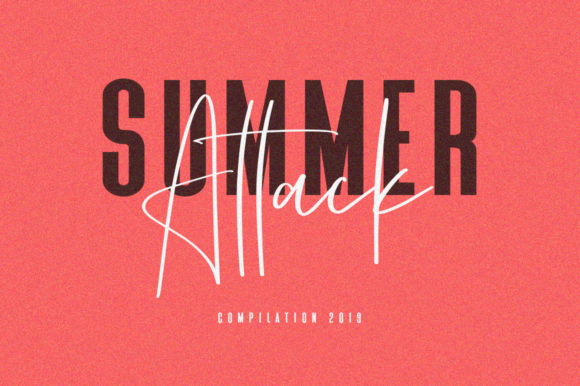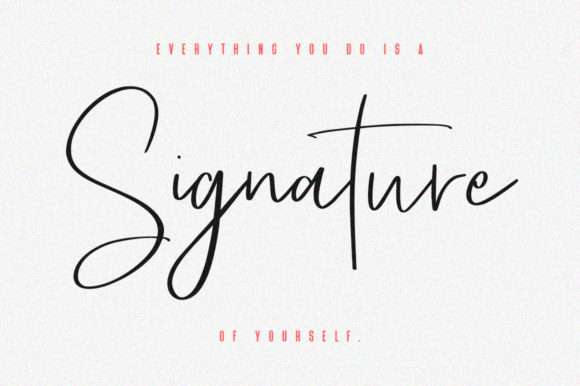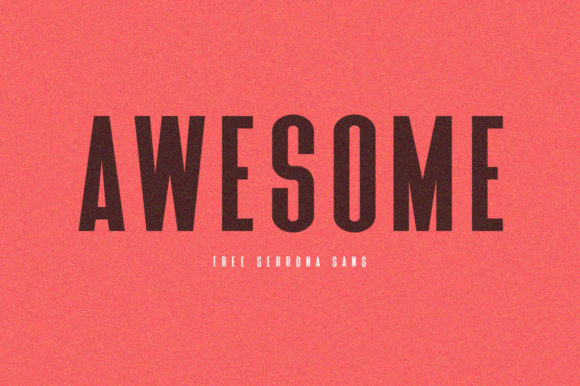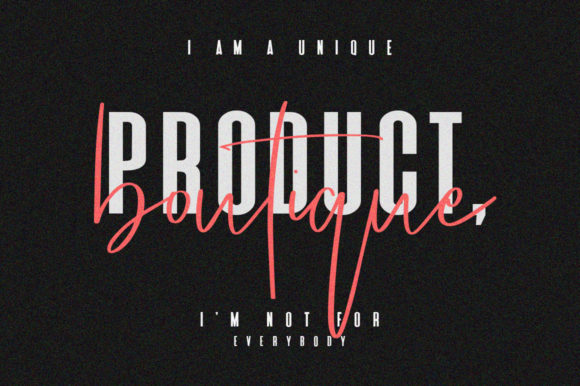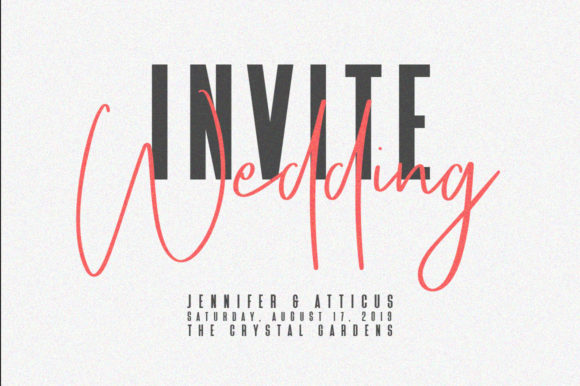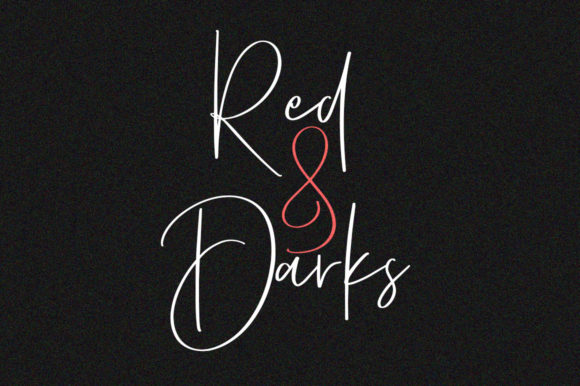
Introduction to Justices Font
Have you ever been working on a creative project, pouring your heart and soul into every detail, only to feel like something’s missing? That’s when you stumble upon the perfect design resource, the game-changer that elevates your project to the next level. For designers, this moment is pure magic.
Enter the Justices Font, a stunning duo font that’s about to revolutionize the way you approach your creative endeavors. With its beautiful and bold sans serif and script styles, Justices Font is the perfect addition to any design project. Whether you’re working on a high-quality logo, branding materials, or a digital asset with a transparent background, this font is sure to make a lasting impression.
What makes Justices Font truly special is its incredible versatility. It’s the perfect choice for designers who want to add a touch of sophistication and elegance to their work. And the best part? It’s available for free download, making it an invaluable resource for designers of all levels.
Key Features of Justices Font
- High-quality design resource ideal for creative projects, with a transparent background for seamless integration.
- Comes in a single font size, but can be easily scaled to suit various design needs.
- Designed with a unique blend of elegance and sophistication, making it perfect for formal or professional applications.
- Supports a wide range of languages, including Latin, Cyrillic, and Greek scripts.
- Perfect for designers, artists, and writers looking for a high-quality font to elevate their creative project.
Honest Review: Justices Font
I recently stumbled upon the Justices Font and I’m excited to share my honest thoughts on this design resource. As a designer, I’m always on the lookout for high-quality fonts that can elevate my creative projects.
What works well: ✨ The Justices Font has a sleek, modern design that’s perfect for a variety of projects, from business cards to digital interfaces. The font is highly legible, even at small sizes, and the transparent background makes it easy to use on any design background.
Limitations: ⚠️ While the Justices Font is a solid choice for most projects, it may not be the best option for extremely formal or traditional designs. Additionally, the font may not be as customizable as some other fonts on the market.
Overall, I’m impressed with the Justices Font and would recommend it to designers looking for a modern, high-quality font for their creative projects.
Justices Font
Justices Font is a high-quality design resource perfect for any creative project. With its transparent background, this font is versatile and can be used in a variety of settings.
Tips for Getting the Most Out of Justices Font
Here are some tips for getting the most out of Justices Font:
- Experiment with different font sizes and styles to achieve the desired look.
- Use the font in conjunction with other design elements to create a cohesive look.
- Take advantage of the font’s transparent background to create visually appealing designs.
Justices Font is perfect for a variety of creative projects, including:
- Posters and advertisements